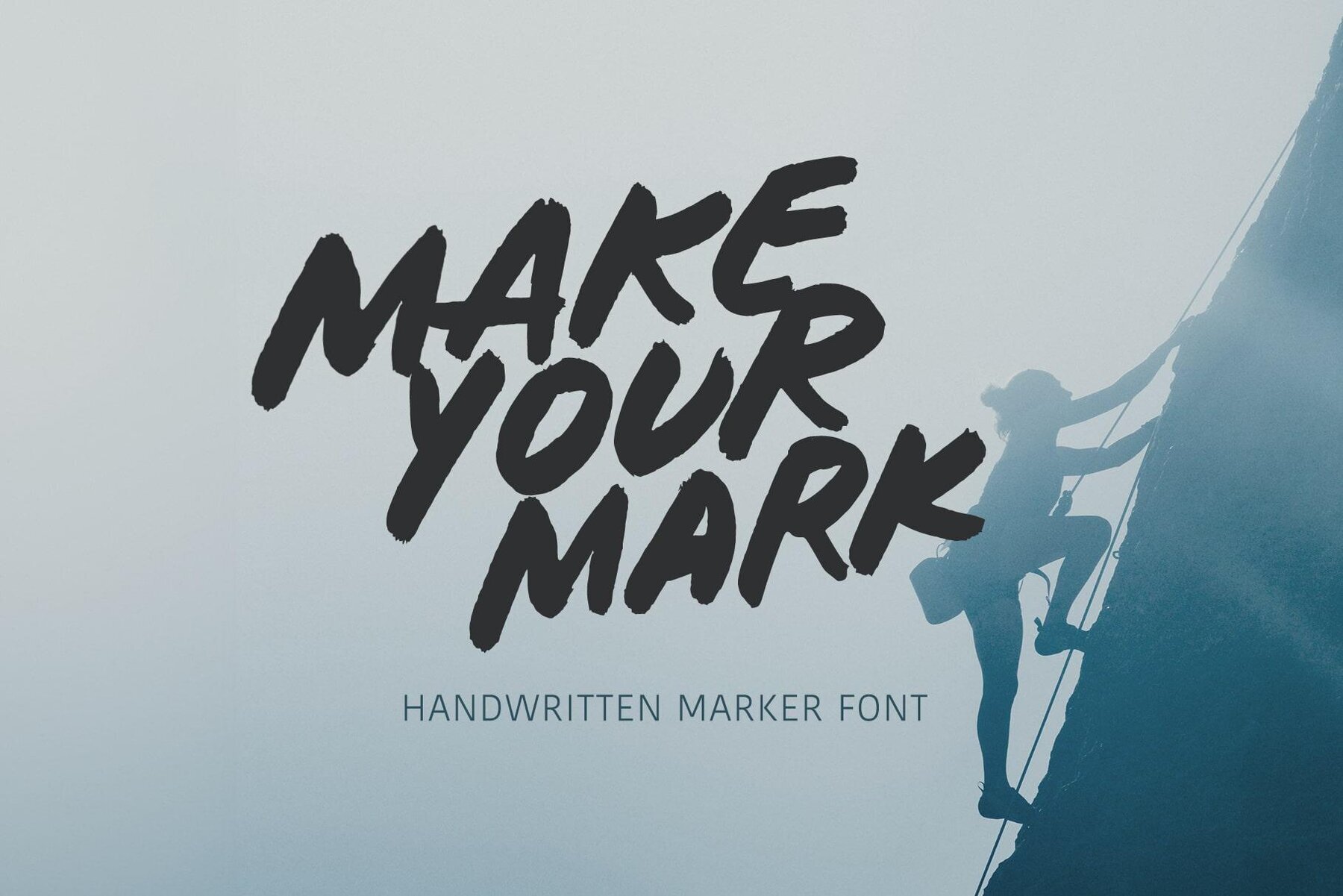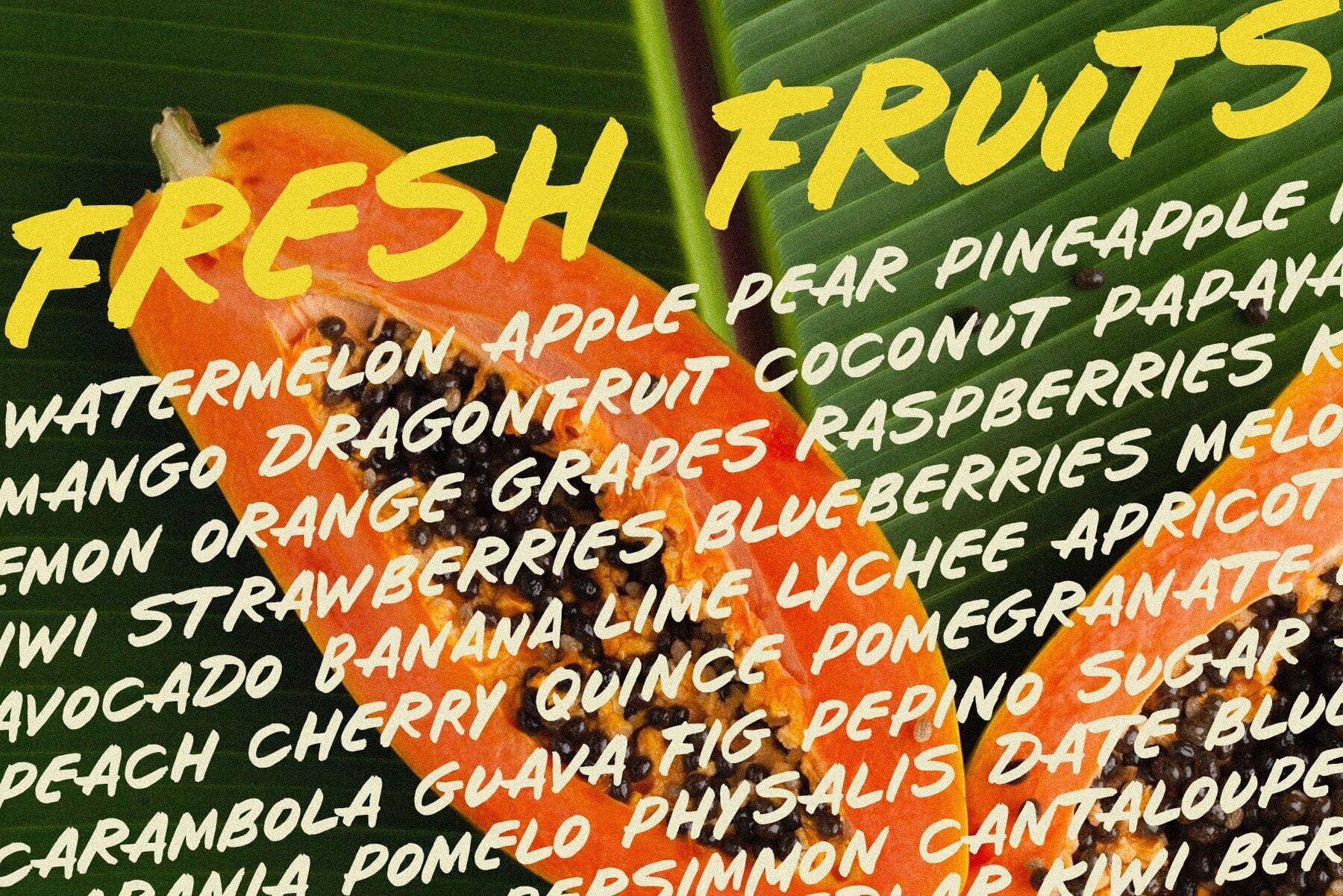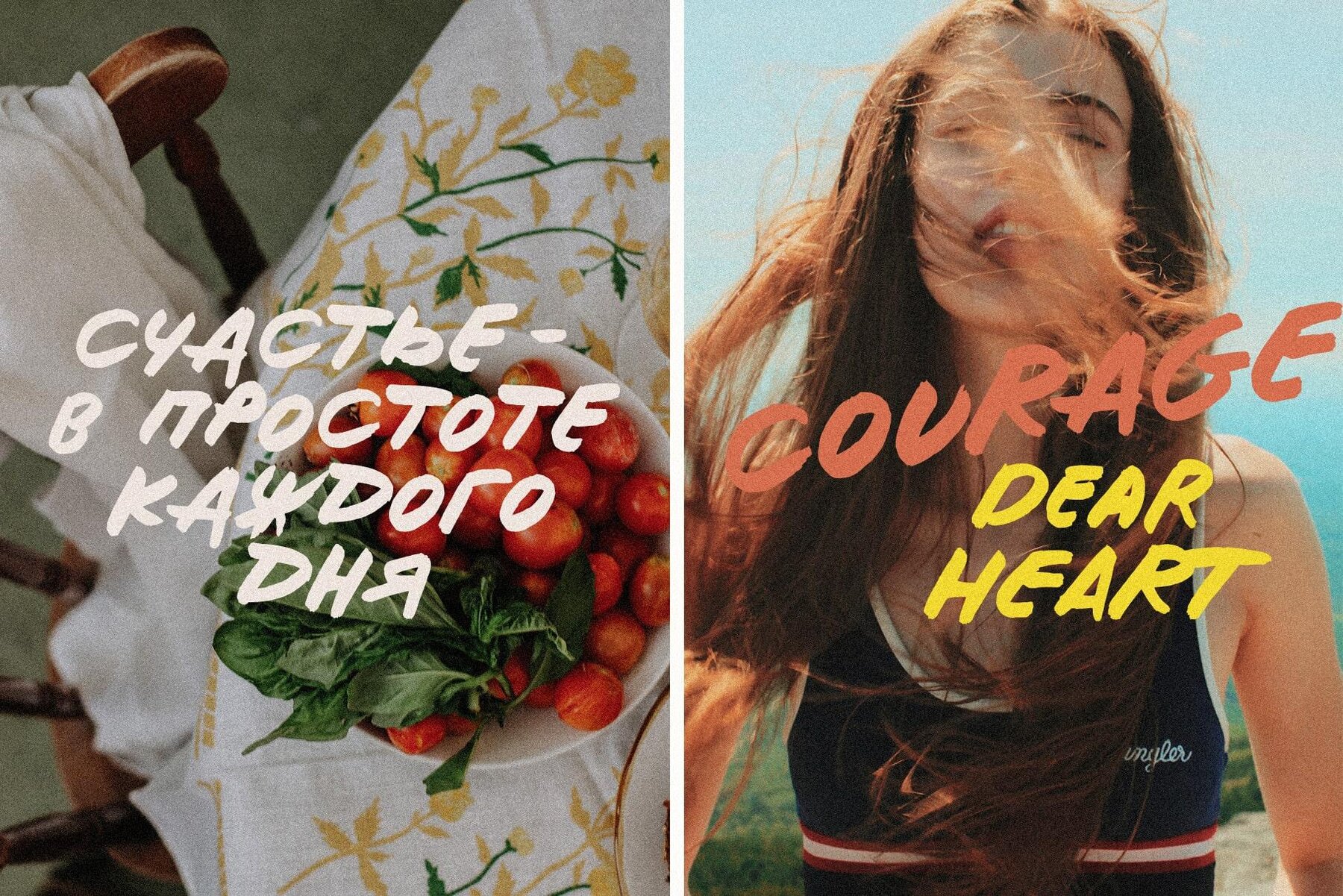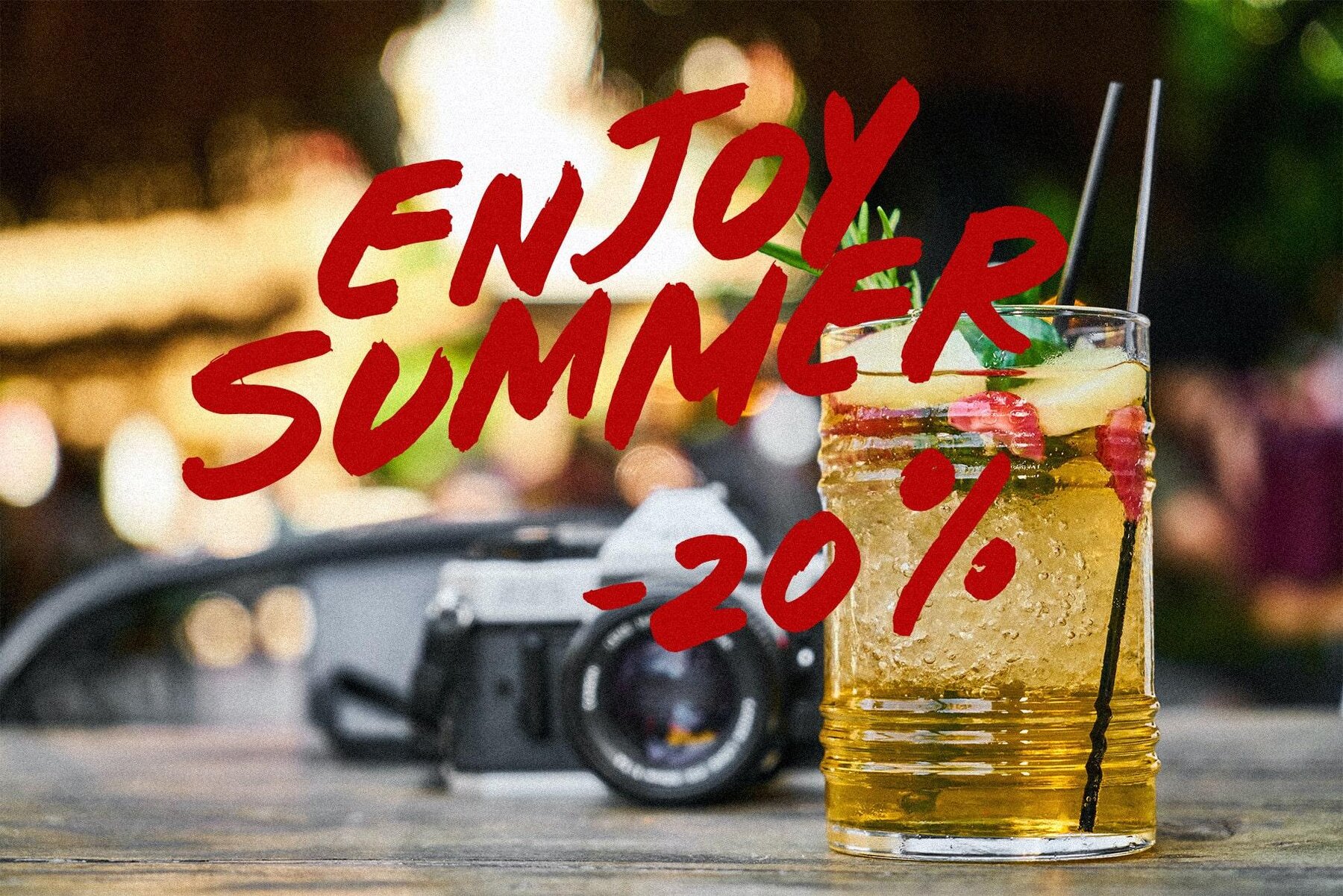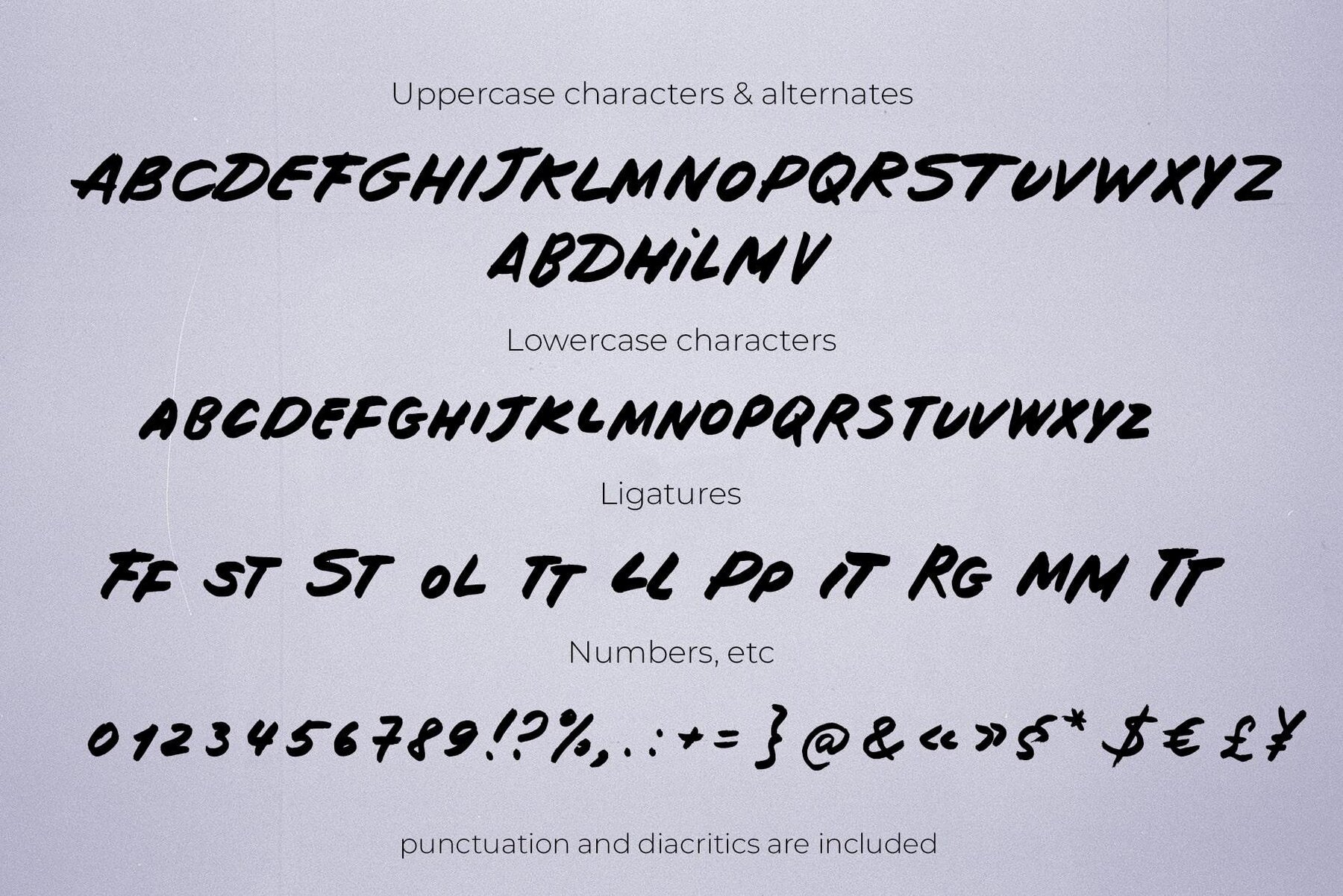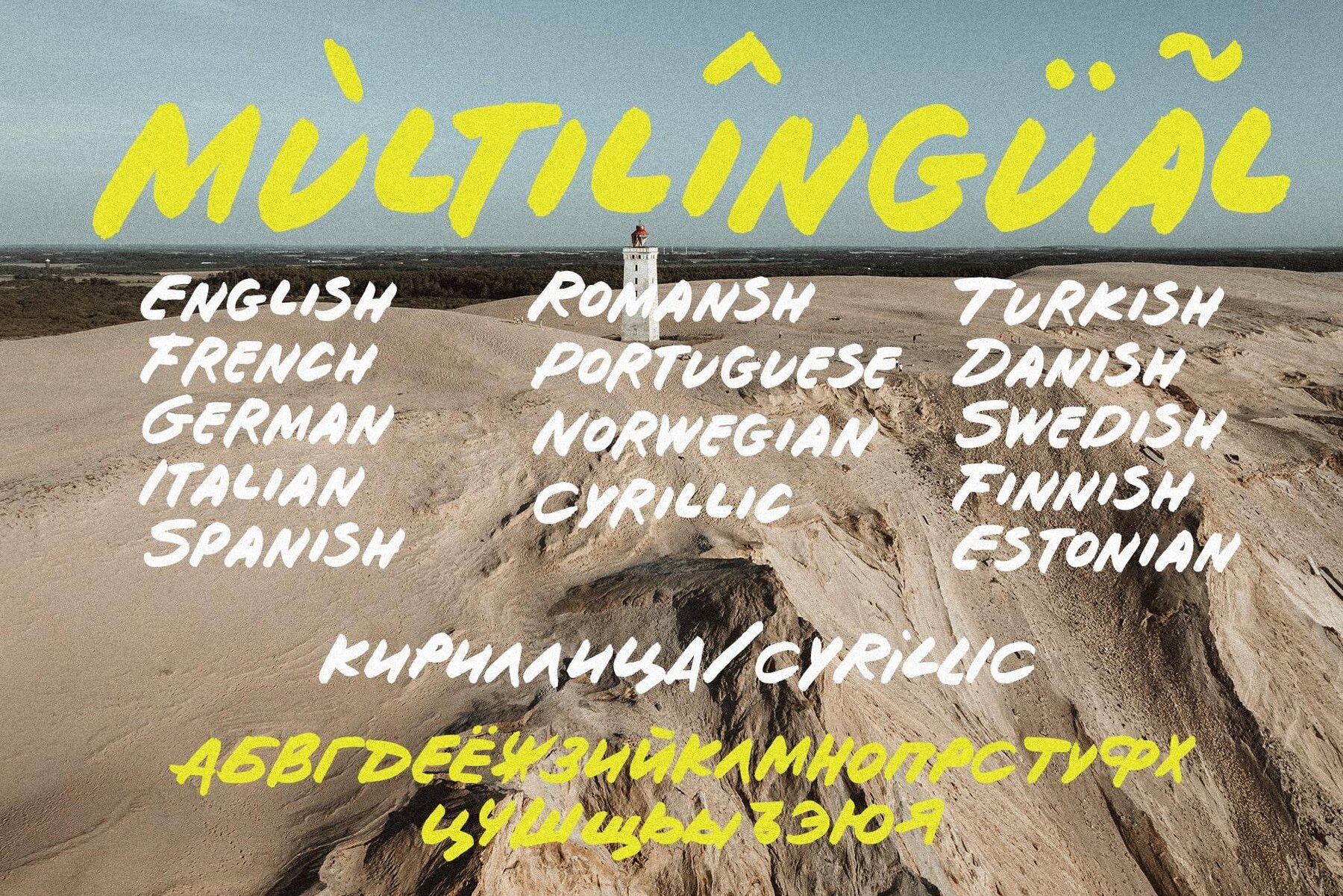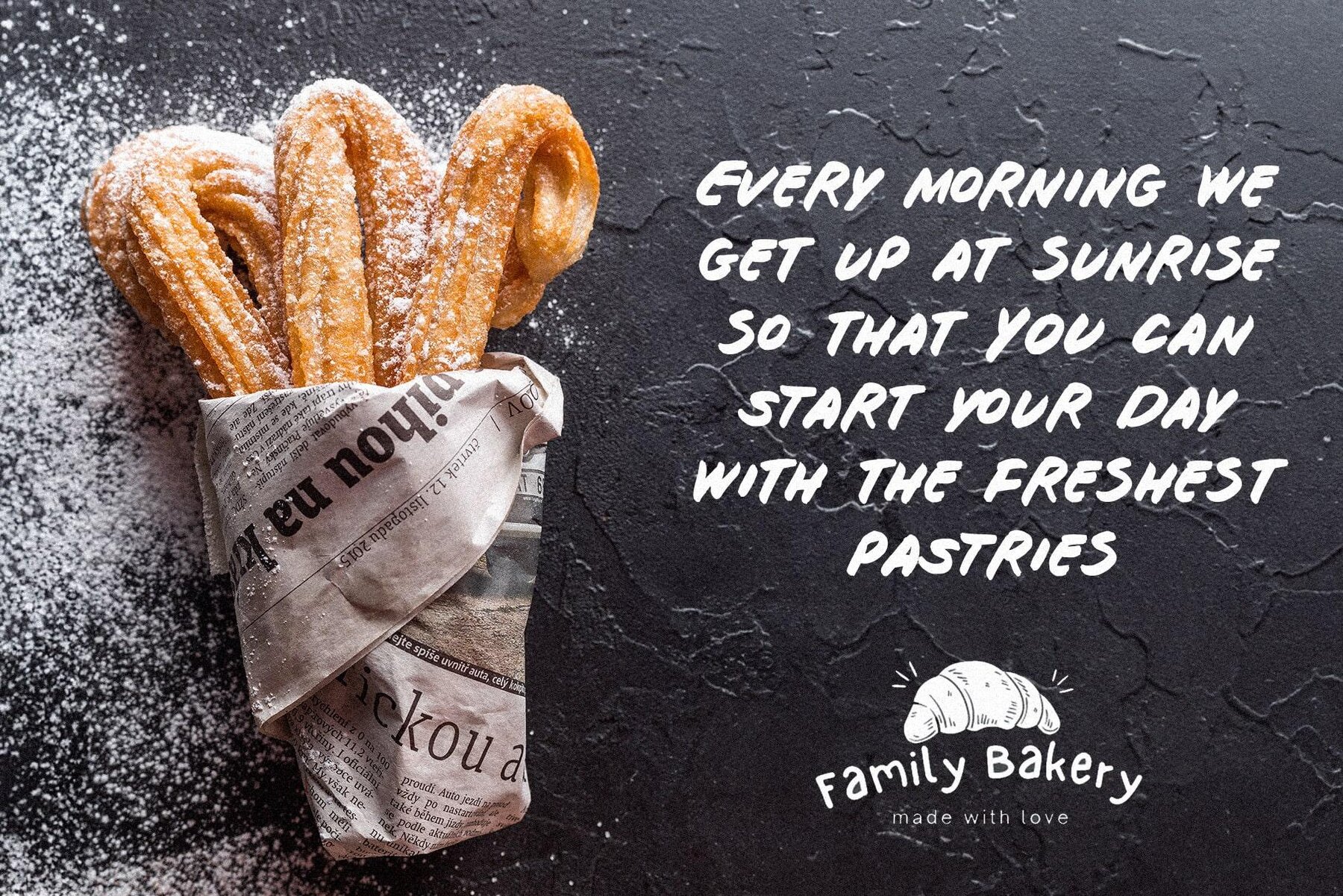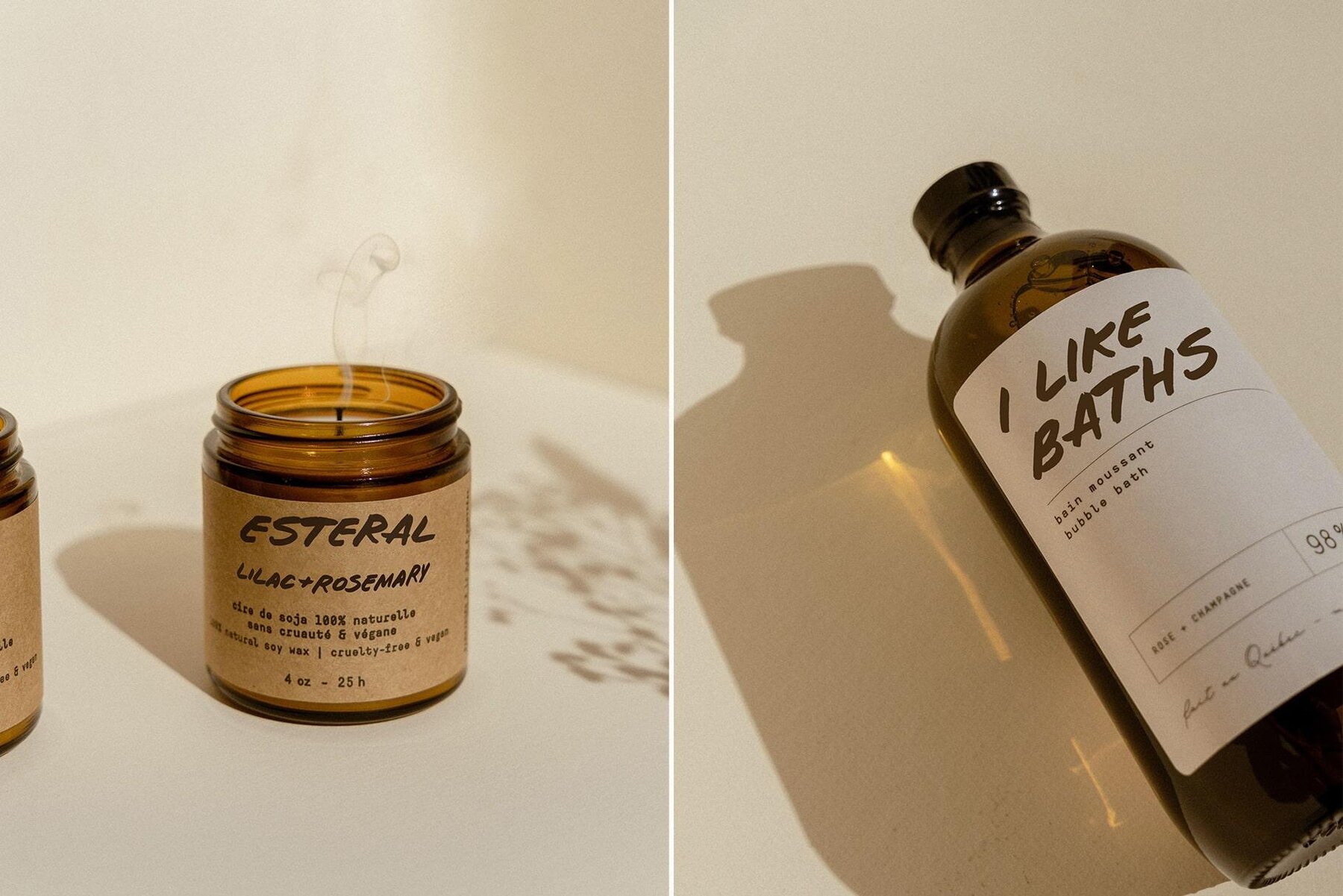
Make your mark Font
Make Your Mark
Create stunning designs with 'Make Your Mark'—a beautifully textured, handwritten font crafted with real marker brush strokes. Embrace the authentic feel this typeface offers with its extensive collection of ligatures and alternative characters, bringing a dynamic touch to any project. This font is perfect for a wide range of design needs. Its diverse language support includes English, French, German, Italian, Spanish, Portuguese, and many others, including Cyrillic. Please note that text and mockups are not included.Make Your Mark by TD Fonts